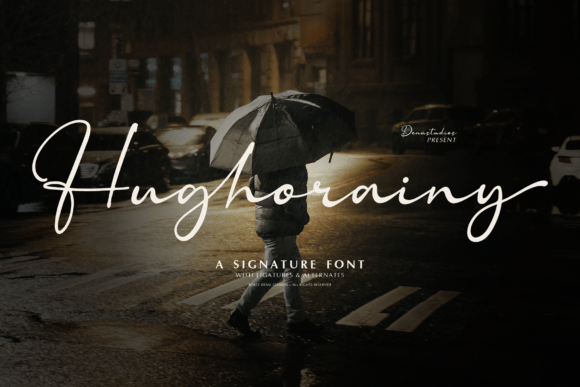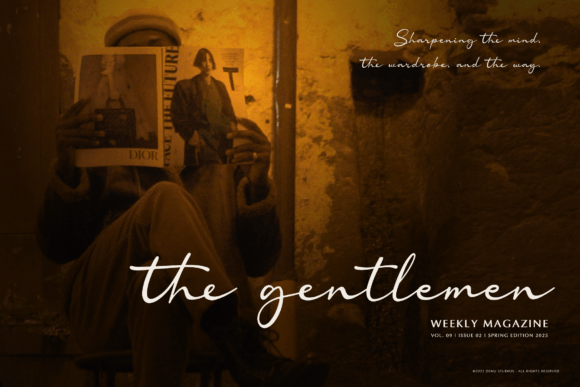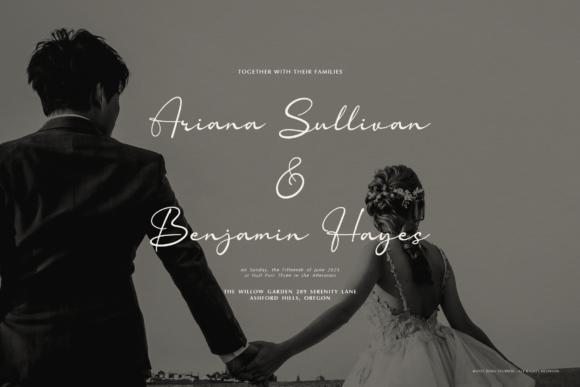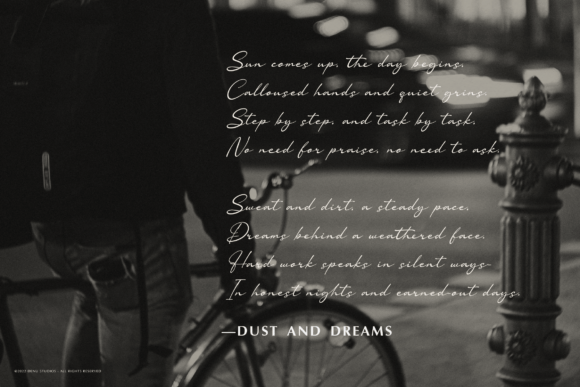
Hughorainy Font: Elegant Signature Script for Wedding & Branding Designs
About the Hughorainy Font
Elevate your designs with Hughorainy Font, a font that combines sophistication with readability. Hughorainy is a graceful signature-style script that drips with elegance and personal charm. With sweeping ligatures and natural strokes, it’s perfect for branding, wedding designs, social media, and any project that needs a handwritten touch with sophistication.
Hughorainy excels in applications requiring a touch of refined elegance, such as logos, wedding invitations, or short-form social media content. Its flowing nature makes it ideal for headings and short phrases where readability is less crucial than visual impact. However, avoid using it for body text or lengthy paragraphs; its intricate details can hinder legibility in continuous blocks of text.
For a balanced design, pair Hughorainy with a clean sans-serif like Lato for body copy or a geometric sans-serif like Montserrat for a modern feel. A classic serif like Garamond could also complement its elegance, offering a sophisticated contrast. Avoid pairing it with other highly decorative scripts, which might create visual clutter.
Hughorainy projects an overall personality of sophisticated charm. It’s best suited for brands emphasizing luxury, personal expression, or handcrafted aesthetics—think boutique hotels, artisan goods, or high-end stationery.
Hughorainy Font Usage Examples
Hughorainy Font Example